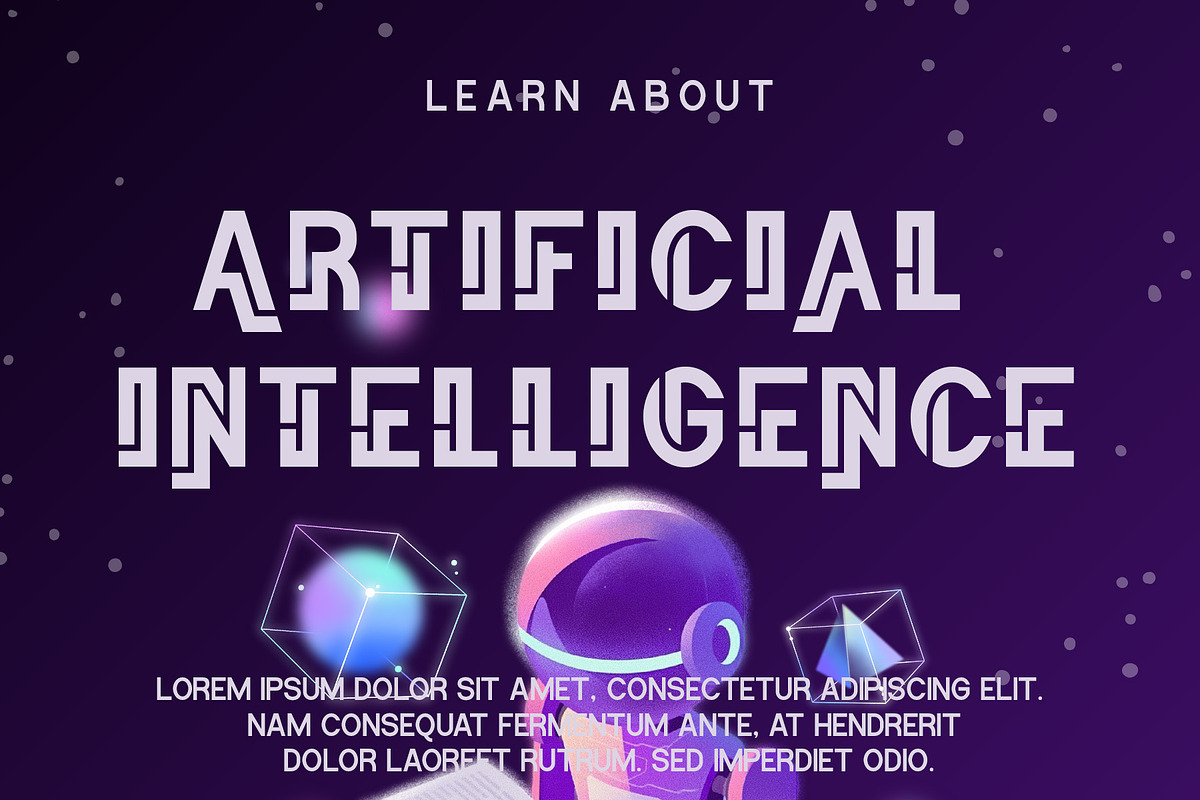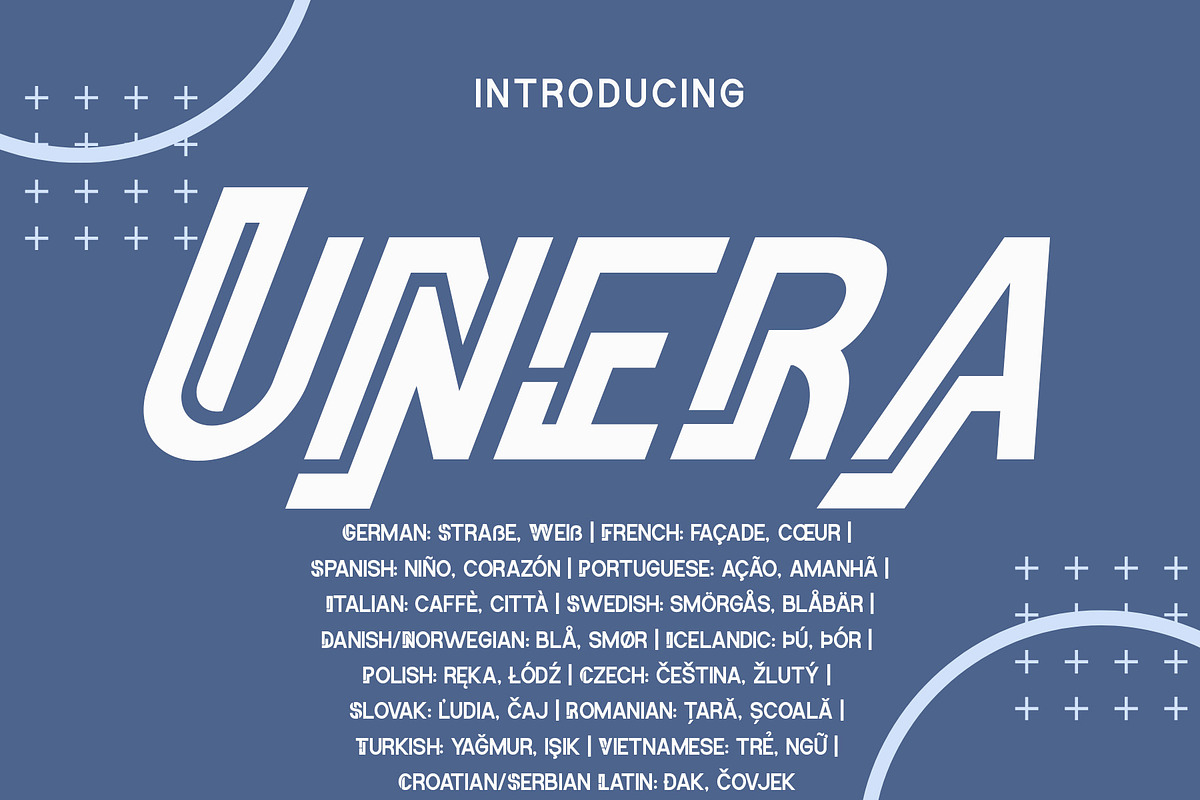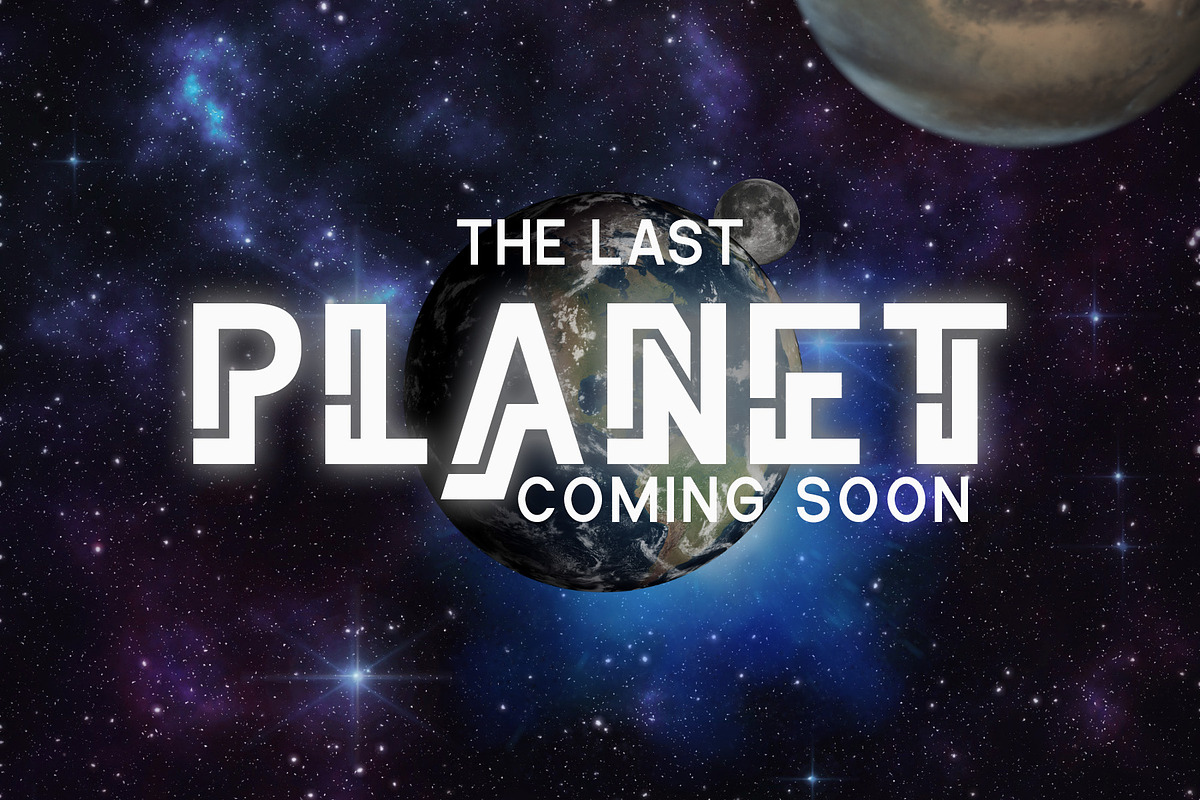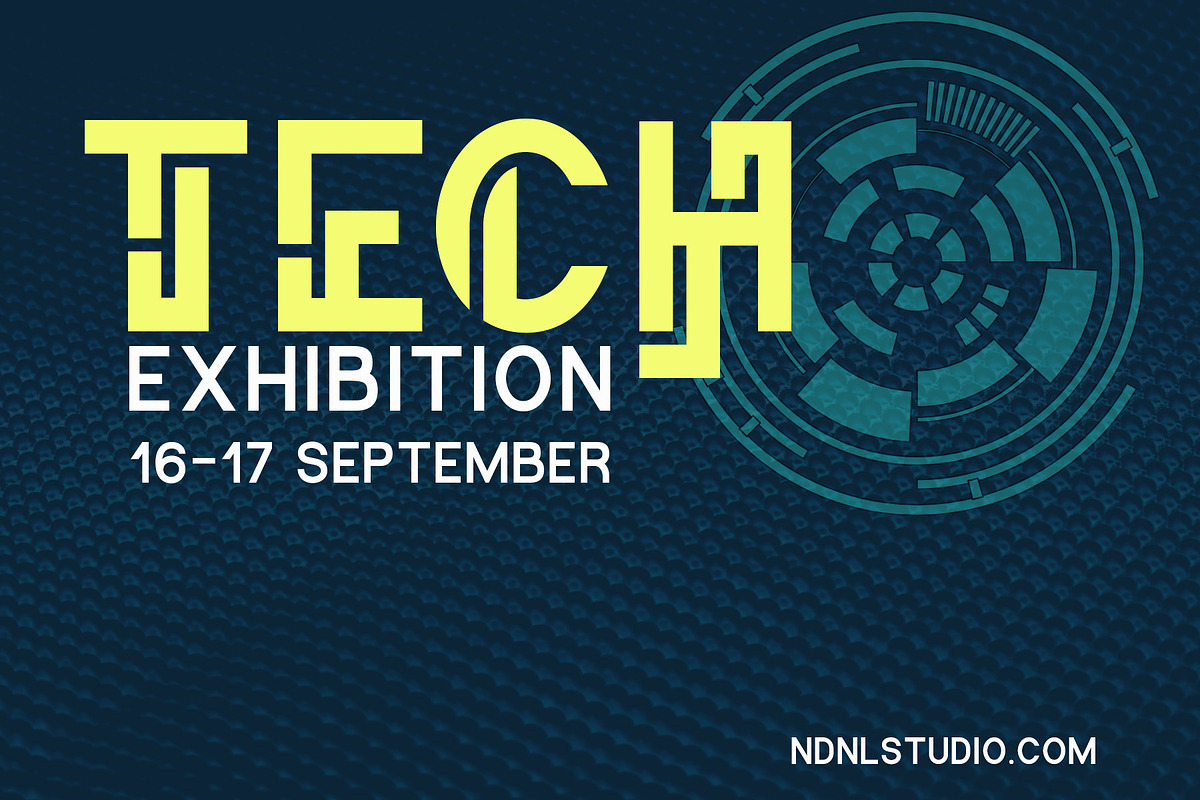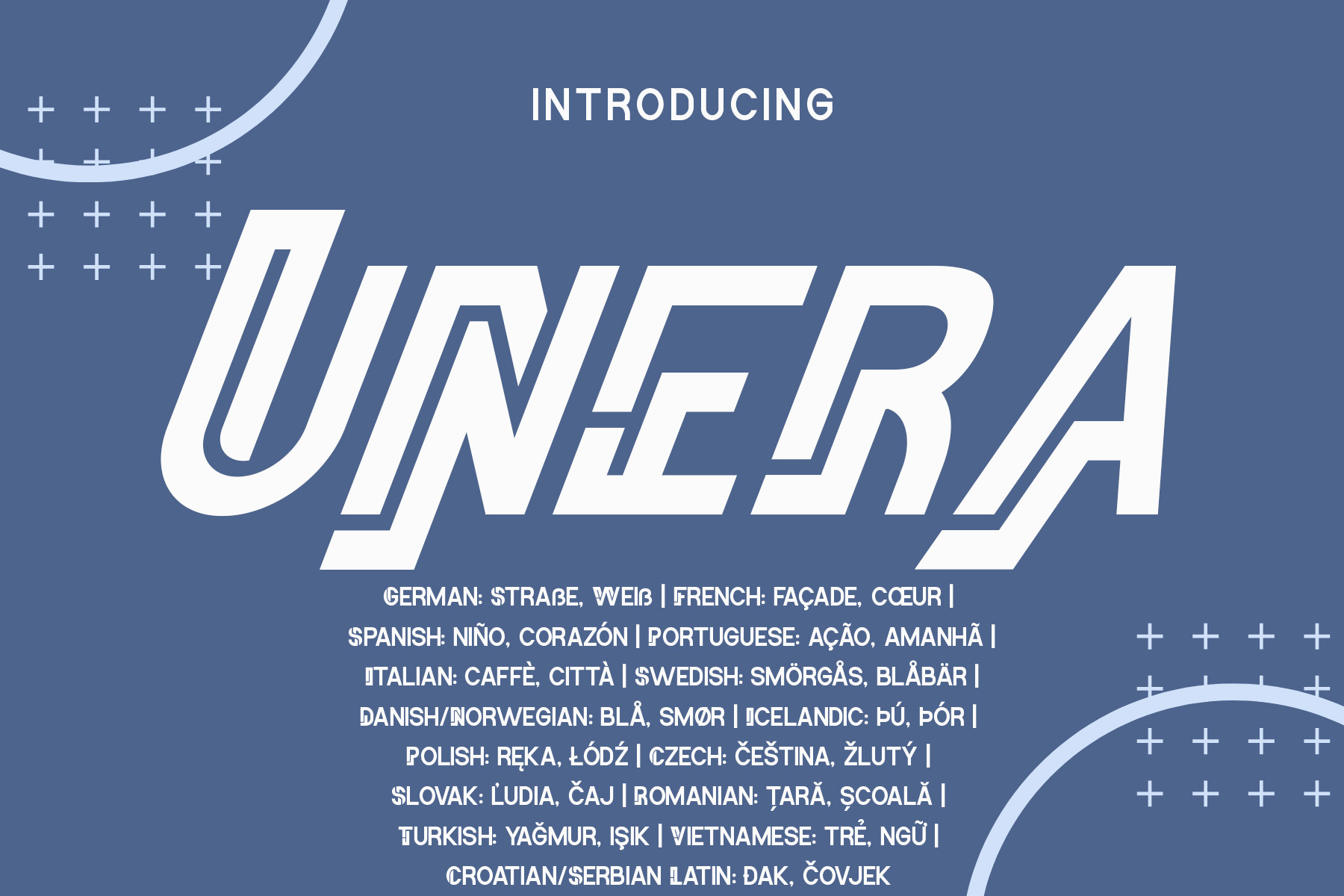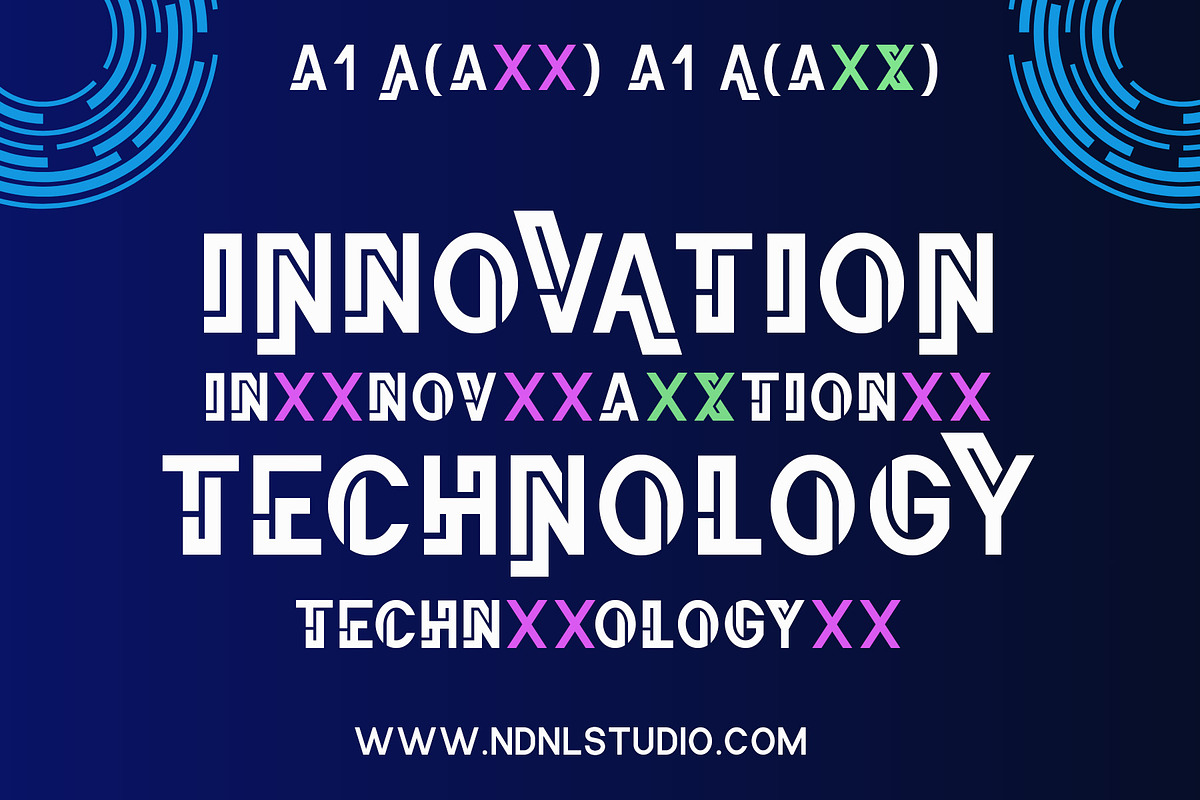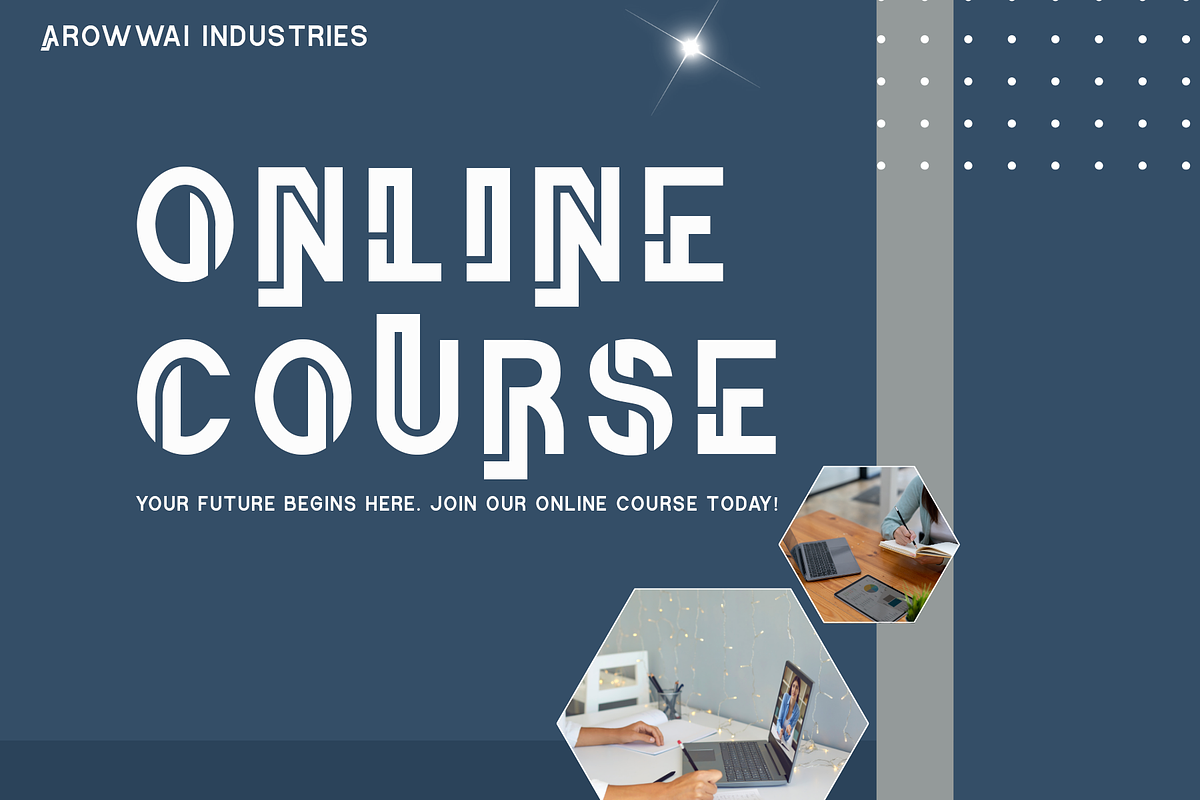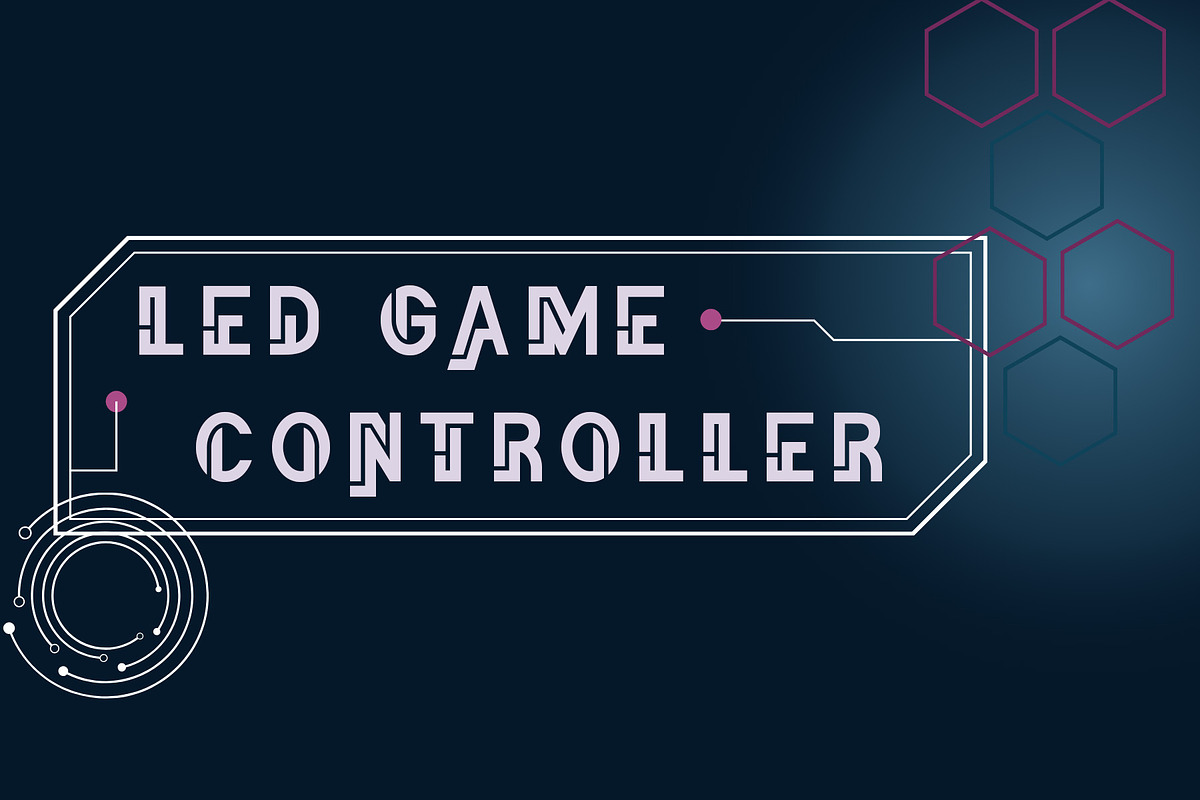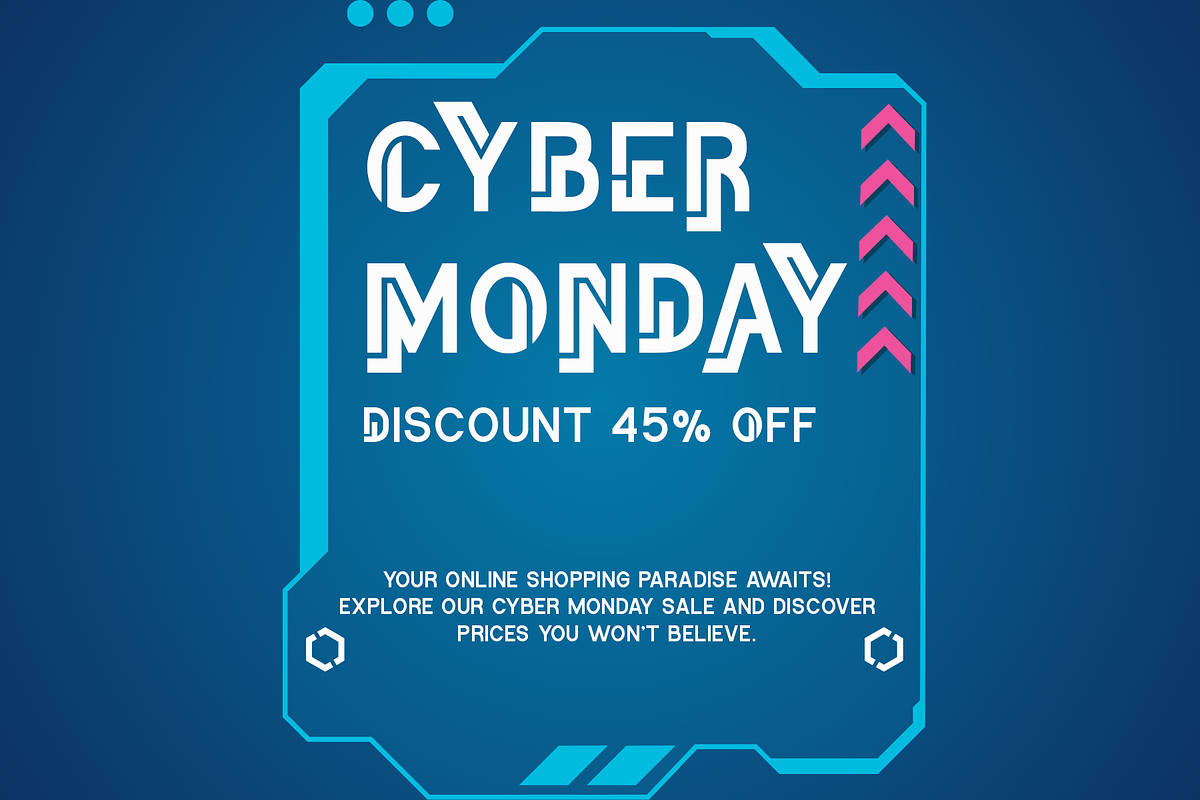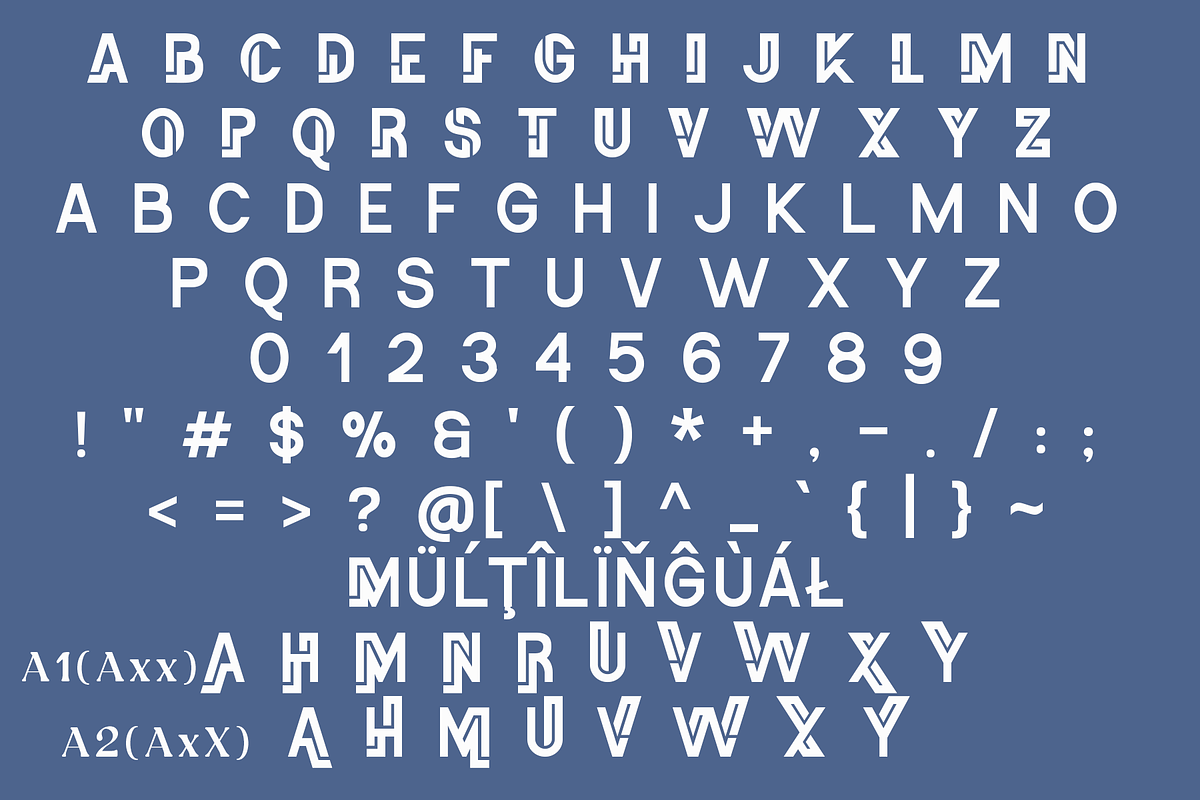
Unera-Bold Font
Unera is a bold, modern sans-serif typeface with a strong italic structure and sharp, confident lines. Its dynamic design conveys speed and energy, making it perfect for projects that demand impact and personality. Carefully refined details create a solid yet flexible visual presence.
Unera is ideal for logos, branding, posters, headlines, packaging, and projects with a sporty, tech-inspired, or urban aesthetic. With extensive multilingual support, it allows seamless use across international markets.
If the software you are using does not fully support OpenType features (such as Stylistic Alternates), you can still access the decorative characters of the font using the following method:
Examples:
- Axx → Decorative A (if available)
- aX → Decorative a (if available)
And also:
- AxX → Decorative A2 (if available)
- aXX → Decorative a2 (if available)
- aXXX → Decorative a3 (if available)